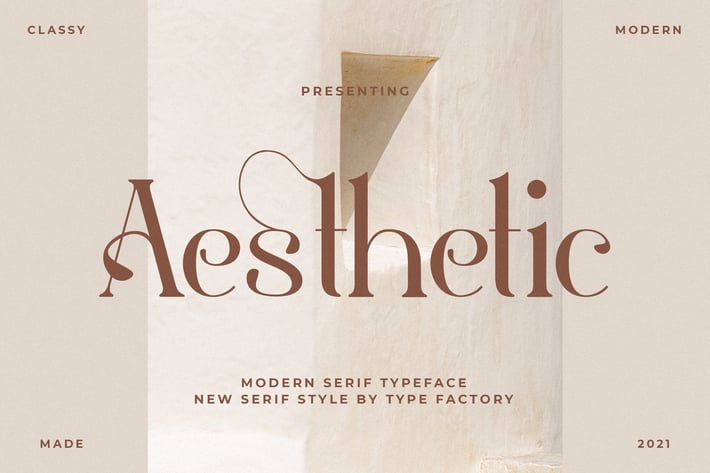
Aestetic – Modern Serif Font
Aesthetic is a modern serif font, that features a simple and minimalist feel.
– Lowercase
– Ligature
– Alternate
– Multilingual Support